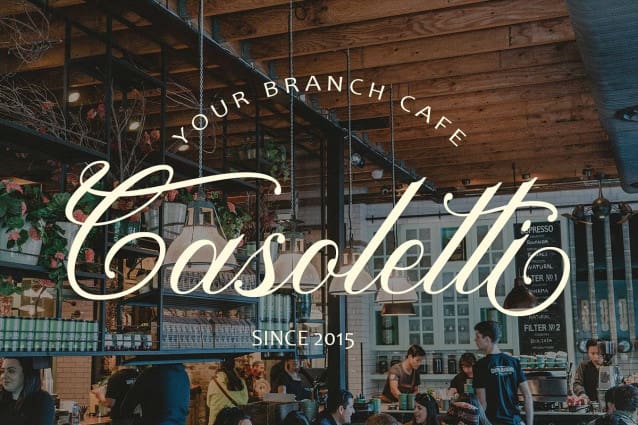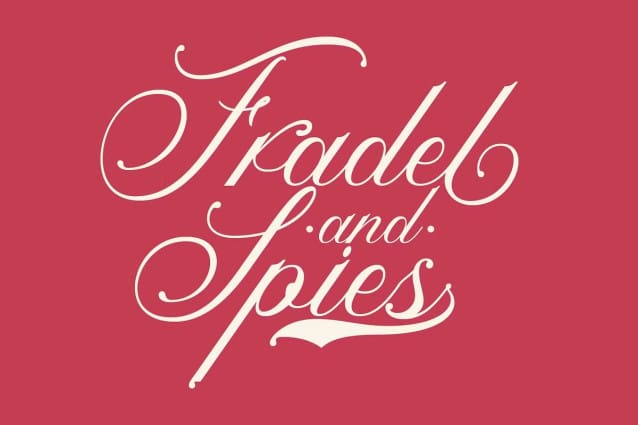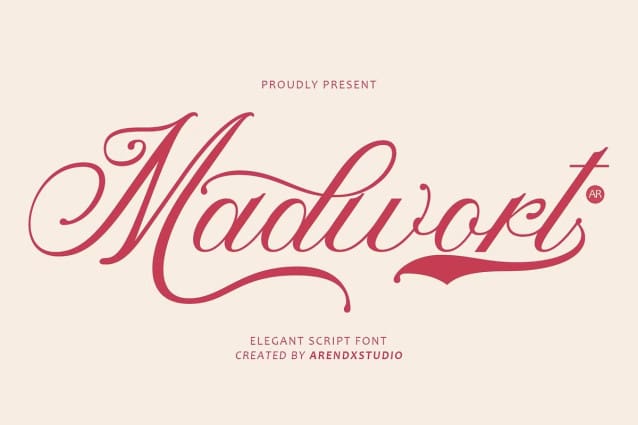
Madwort Font
Madwort Font is a stylish handwritten script font that exudes elegance and charm with its flowing, graceful curves. Perfect for invitations, logos, and branding, it adds a personal and sophisticated touch to any design. The font’s delicate strokes bring warmth and creativity to your projects.